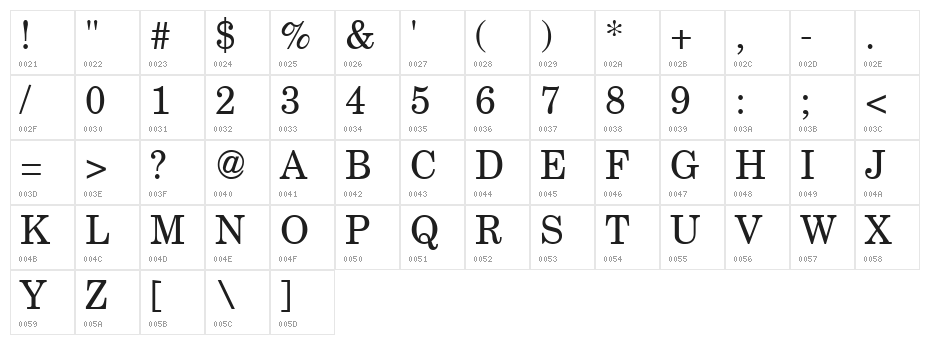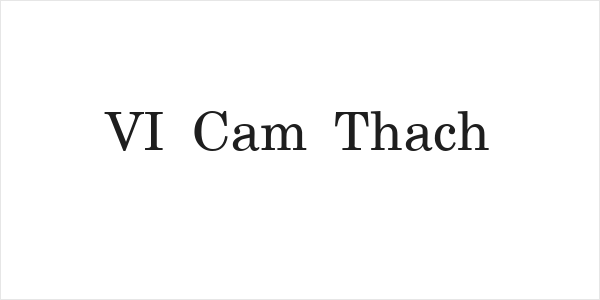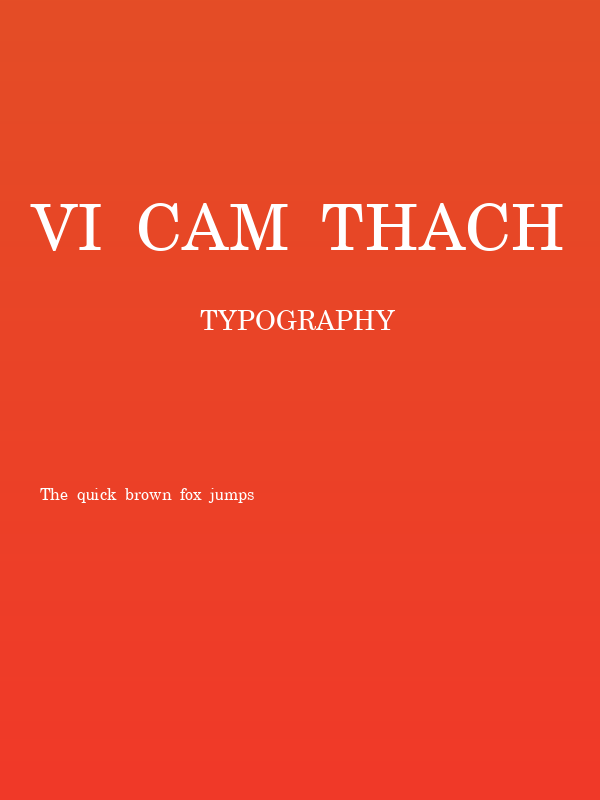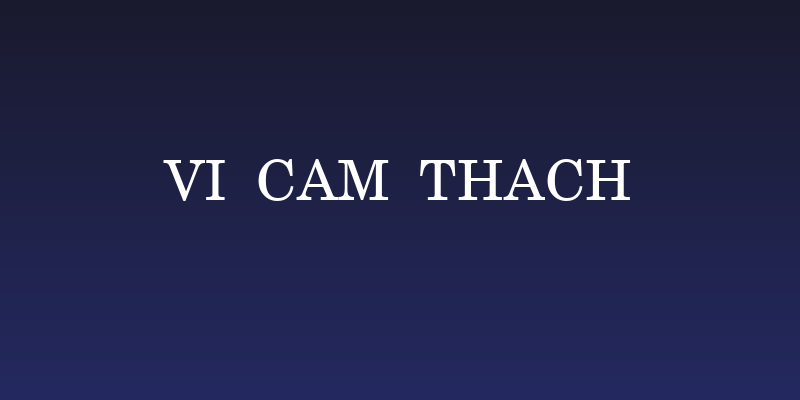
VI Cam Thach Font
VI Cam Thach Description
This font features a classic serif style with elegant and refined strokes. The uppercase letters are bold and commanding, while the lowercase letters maintain a consistent and harmonious flow. The numerals are clear and well-defined, making them easily readable. Special characters are thoughtfully designed to complement the overall aesthetic. The font exhibits a medium contrast between thick and thin strokes, adding to its readability and visual appeal. Its timeless design makes it suitable for a variety of applications, from formal documents to stylish branding.
| Proposed Projects | Ideal for editorial design, book covers, formal invitations, and branding projects that require a touch of elegance. |